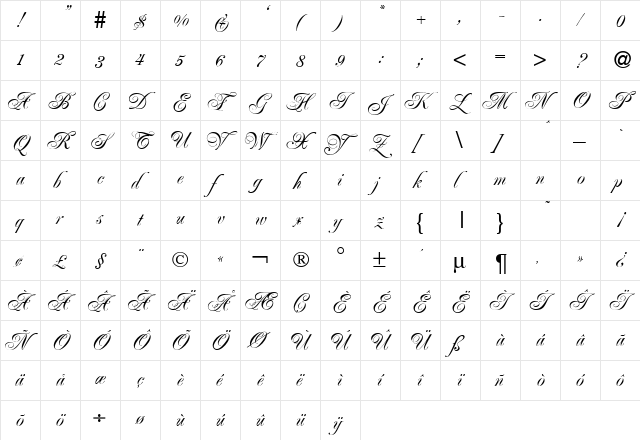
JacobaLightDB Normal
Design Context for JacobaLightDB Typeface
JacobaLightDB is a composed and adaptable typeface that performs quietly and consistently across a wide range of design contexts. The delicate stroke weight brings airiness and refinement to layouts.